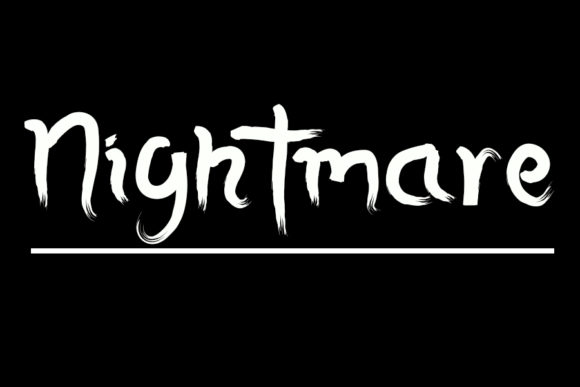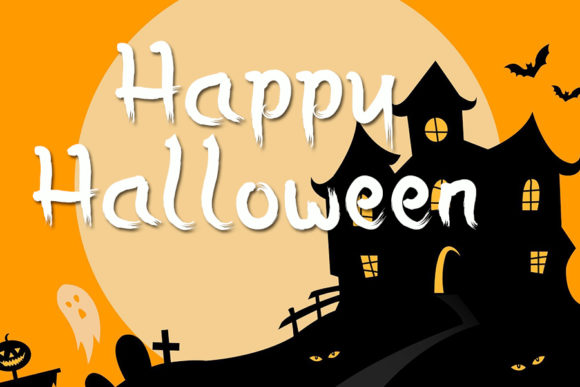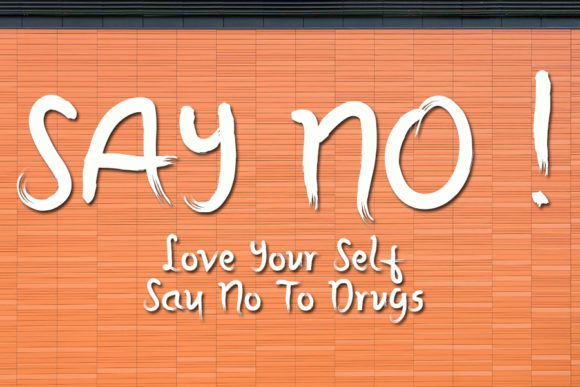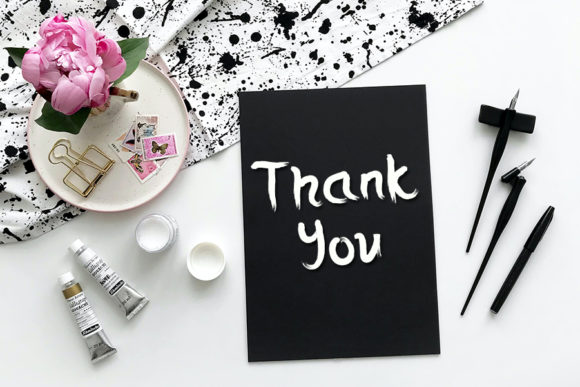
Unlock the Mysterious Charm of Your Designs
You’ve stared at a blank canvas, a blank page, or a blank screen, waiting for that spark of creativity to strike. And then, it hits you – a bold idea, a quirky concept, or a haunting vision. But, how do you bring it to life and make it truly stand out?
That’s where the Annomali Font comes in – a unique, brushed, and slightly spooky display font that adds an air of mystery to your creative projects. With its distinctive texture and eerie charm, Annomali Font is the perfect tool to elevate your designs and make them unforgettable. Whether you’re a graphic designer, a writer, or a maker, this font is a valuable addition to your toolkit, helping you to create works that are both hauntingly beautiful and visually striking.
Annomali Font Key Features
- Size: The Annomali font family includes 8 weights (Thin to Black) and 4 widths (Standard, Condensed, Compressed, and Extended), providing flexibility for various design needs.
- Resolution: Designed to be scalable, Annomali fonts are optimized for use at any resolution, from screen to print.
- Unique Characteristics: Annomali’s distinctive design combines modern and vintage elements, offering a unique aesthetic for creative projects.
- Language Support: The font family supports a wide range of languages, including Latin, Cyrillic, and Greek scripts, making it suitable for global design applications.
Annomali Font Review
As a designer, I’ve had the pleasure of working with various fonts, and Annomali is one that has caught my attention. Here’s my honest review of this unique font.
- The Annomali font has a distinct, quirky feel to it, making it perfect for creative projects that require a touch of personality.
- The font is highly customizable, allowing you to adjust the width, weight, and style to suit your design needs.
- It’s a great choice for headings, as it’s bold and attention-grabbing, making it perfect for grabbing the viewer’s attention.
- It also comes in a variety of styles, including serif, sans-serif, and script, making it versatile for different design projects.
- The font may be too bold for some designs, which can be overwhelming if used excessively.
- It may not be the best choice for body text, as it can be difficult to read in large blocks of text.
- The font may require some adjustment in terms of kerning and spacing, as it can be quite eccentric.
Overall, I think Annomali is a great font for designers who want to add a touch of quirkiness to their projects. While it may have some limitations, its unique feel and high customizability make it a valuable addition to any designer’s toolkit.
Annomali Font is ideal for:
- Brand logos and identities
- Typography-based designs
- Emphasizing key messages or headlines
- Creating a unique and eye-catching visual style